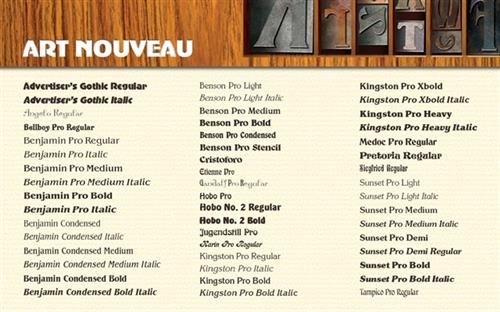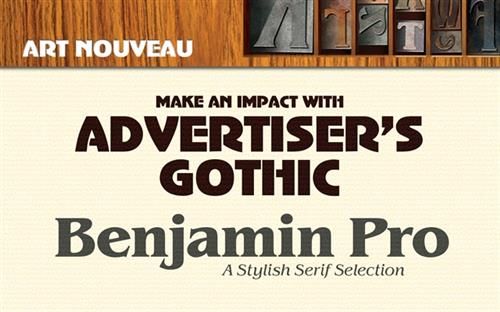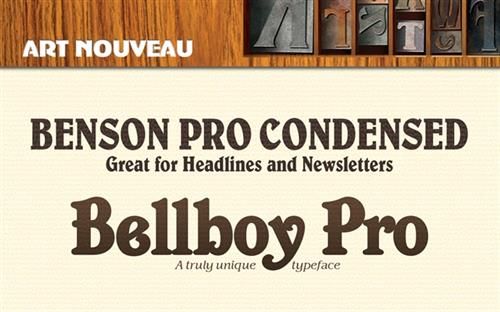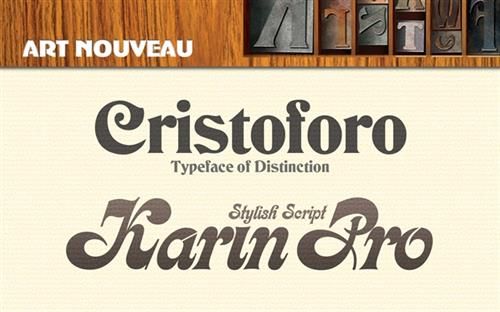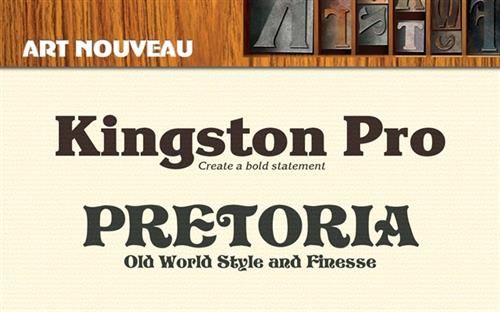
Font Collection: Elegant Art Nouveau
Great fonts are the cornerstone of great design projects. Make your creations look their best down to the letter with Font Collection: Elegant Art Nouveau. Design a solid foundation of success with our high-quality font selection.
Super Selection of Fonts
Fantastic Fonts to Dress Up Projects
Light or heavy, plain or fancy, traditional or contemporary, you will discover the perfect style with Font Collection: Elegant Art Nouveau. Our fonts have personality! No matter what kind of font you need, you will find terrific typefaces for all of your projects, including:
· Book Marks
· Brochures
· Business Cards
· Crafts
· Displays
· Greeting Cards
· Letterhead
· Logos
· Newsletters
· Scrapbooks
· Signs
· Stationary
· Web Projects